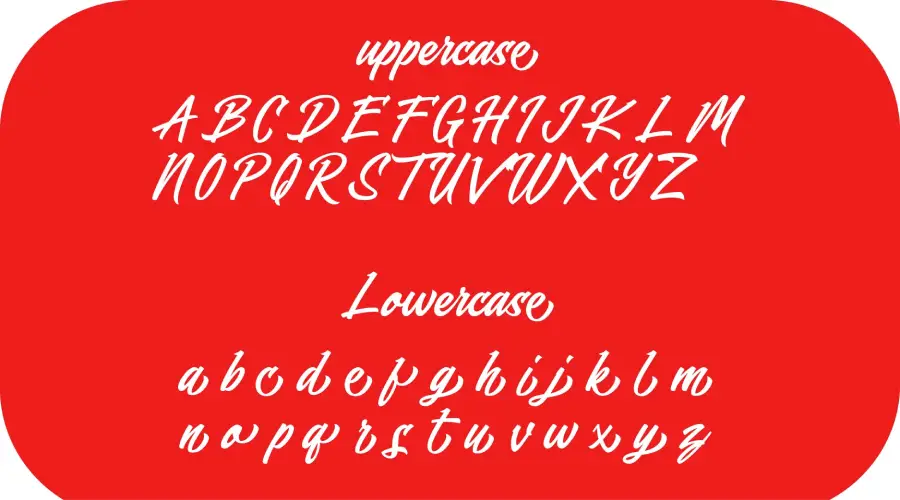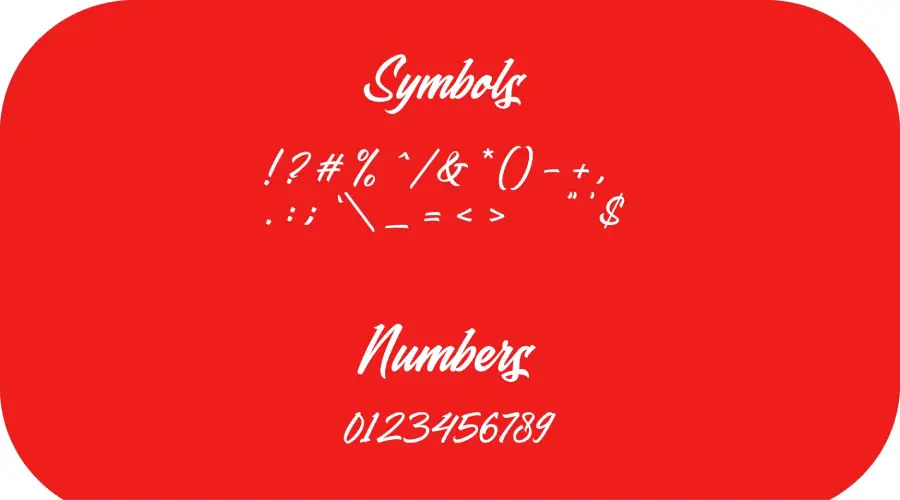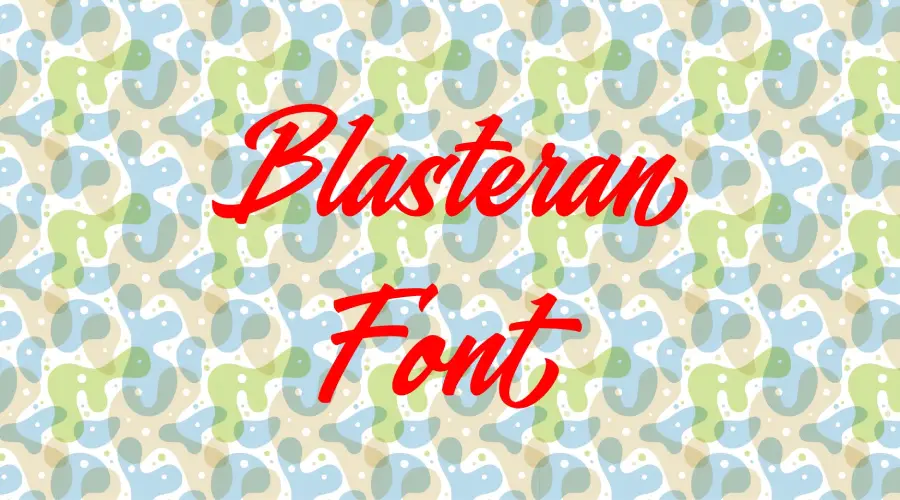
Blasteran font is characterized by its thick, flowing lines and informal, hand-lettered style. It is a versatile font that you can use to create a variety of looks, from playful and whimsical to elegant and sophisticated. It is also called Blasteran Script Font
Blasteran is a free script font created by Kong Font. It is a script font with a retro feel. It is suitable for use in a variety of projects, such as logos, branding, and social media posts. This font was inspired by vintage posters and signs from the 80s and 90s. It has a smooth and natural flow, with irregular strokes and curves that give it a distinct and authentic look.
Effective Use of The Font
Blasteran’s versatility makes it suitable for:
- Logos: Blasteran font’s retro feel makes it a great choice for logos that are meant to evoke a sense of nostalgia or old-fashioned charm.
- Branding: You can also use it to create branding materials, such as business cards, letterhead, and website headers.
- Social media posts: This font is a great way to add a touch of personality to your social media posts. Use it to create eye-catching captions or to highlight important information.
- Headlines: You can use it to create stunning headlines for your website, blog, magazine, or newsletter. You can also use it to grab the attention of your readers and make them curious about your content.
- Posters: Blasteran font can help you design attractive and engaging posters for your events, promotions, campaigns, or announcements. You can use it to create a contrast between the text and the background or to add some dynamism and movement to your design.
Blasteran font is a retro script font that can add flair and personality to your design projects. It has a smooth and natural flow, with irregular strokes and curves that give it a distinct and authentic look.
Blasteran Script Font is a versatile font for event titles, especially skateboarding events. It can also be a digital font for film intros and outros, or a clothing design font for hoodies, jackets, and more. Moreover, it can be a brochure title font for product promotions, as it attracts attention with its strong character. It can also be a sign font for places or events.